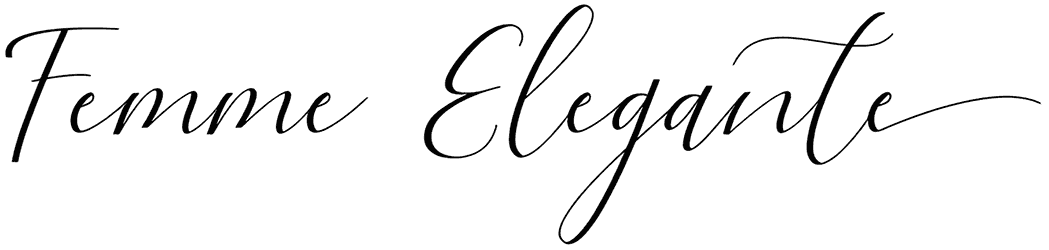
Femme Elegante Font
Let’s enrich your intended luxury design with a stunning face. Try this unique item. As a calligraphy font, Femme Elegante has delicate and chic letters that can be harmonized with any formal or informal project. Give it…
Let’s enrich your intended luxury design with a stunning face. Try this unique item. As a calligraphy font, Femme Elegante has delicate and chic letters that can be harmonized with any formal or informal project. Give it a try and place this feminine font on your novel designs, namely business cards, magazines, movie posters, or the like, and give them a beautiful vibe.